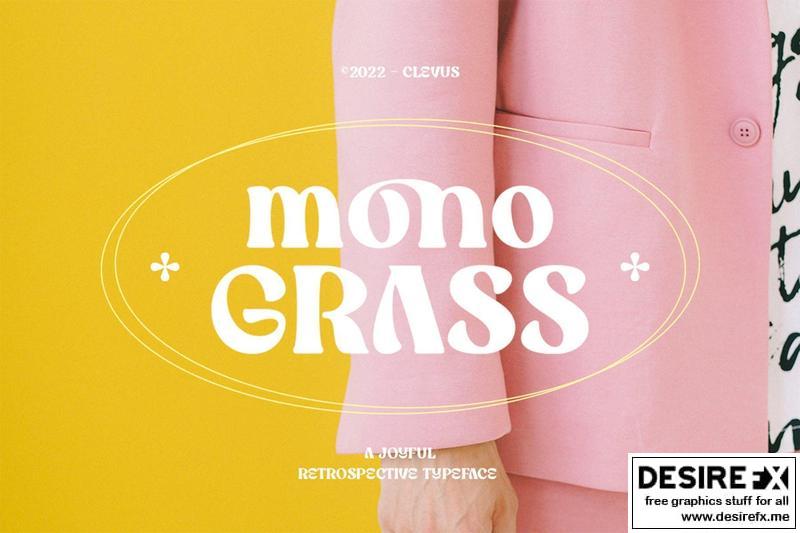
Proudly present Mono Grass Typeface that makes us feel nostalgic! It brings back the 60s to 70s vibe with a joyful and retro look, with a uniquely crafted touch to each letter.
Comes with alternatives and ligatures, and helps to create stunning magazine imagery, quotes, posts, blog posts, branding projects, logo, poster and much more.
Font Features :
• Letters, numbers, symbols, and punctuation
• 46 alternates and ligatures
• Multilingual Support
Language Support: Danish, English, Estonian, Filipino, Finnish, French, Friulian, Galician, German, Gusii, Indonesian, Irish, Italian, Luxembourgish, Norwegian Bokmål, Norwegian Nynorsk, Nyankole, Oromo, Portuguese, Romansh, Rombo, Spanish, Swedish, Swiss-German, Uzbek (Latin)